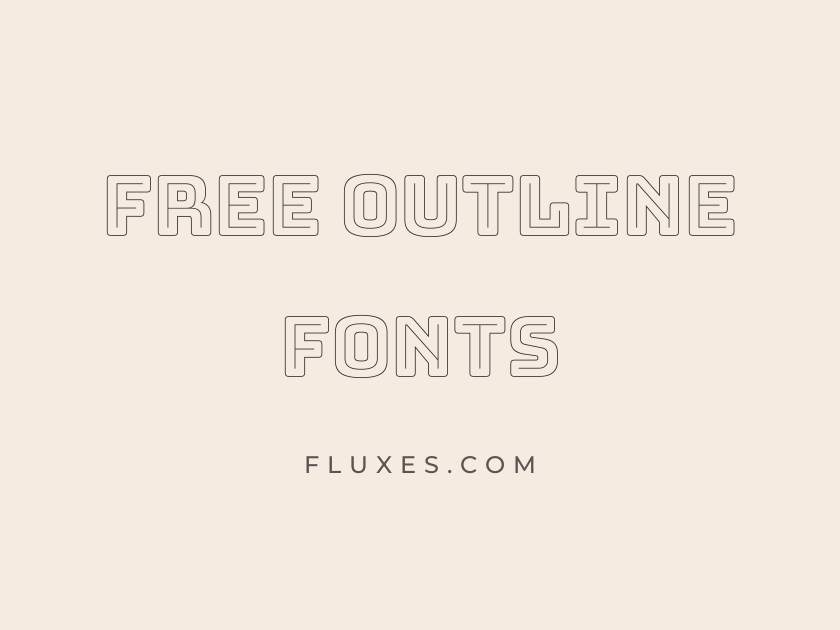
22 Best Free Outline Fonts
Outline fonts occupy a strange and useful corner of type design: letters built from a single hollow stroke rather than a solid fill, so the background always shows through. That transparency is exactly why designers reach for them on badges, posters, packaging, sports jerseys, and layered logo lockups, where a hollow letterform can sit on top of a photograph, a color block, or another word without ever going muddy. Because true outline construction is a specialist skill, the free options are fewer and more distinctive than in almost any other category, and the good ones tend to have real personality rather than generic polish.
This roundup pulls together the strongest hollow, inline, and stencil-style families on Google Fonts, along with a few dimensional cousins that share the same graphic, cut-out sensibility. Most of these work best big and bold; a few reward a lighter touch. Details on where each one shines, and where it struggles, follow.
Bungee Outline
ROAD TRIP POSTERS AND STADIUM SIGNAGE
Bungee Outline
The flagship of the genre on Google Fonts, this is a thick, confident hollow caps face built for maximum visibility at billboard scale. It comes from the same Bungee family used all over transit signage and street art, so the DNA is urban and unapologetically loud. Stack it in all caps with generous letter spacing and it reads instantly as a badge, sticker, or festival poster headline.
Londrina Outline
Handmade signs from a São Paulo sign shop
Londrina Outline
There is a warm, hand-cut quality to this one, as if someone traced bold brush letters with a chisel. It traces back to Brazilian street lettering traditions, and that folk-craft feeling carries through even at large display sizes. Pair it with a plain grotesque for body copy and the contrast between rustic and clean does a lot of the design work for you.
Fascinate Inline
Psychedelic type for retro festival flyers
Fascinate Inline
Wavy, hypnotic, and a little bit sixties, this face leans into curves where most outline fonts lean into blocks. The inline stroke running through each glyph gives it a layered, groovy look that suits concert posters, record covers, and anything chasing a retro-futurist mood. It is a personality font first, so save it for a headline or two rather than a full paragraph.
Bungee Hairline
Delicate outline lettering for modern branding
Bungee Hairline
Where its sibling Bungee Outline is heavy and blunt, this variant is drawn with a whisper-thin stroke that feels architectural and refined. It suits minimalist logotypes, editorial pull quotes, and anywhere a designer wants the graphic quality of an outline without the shout. Keep it large, though; drop it below headline size and the fine strokes start to disappear.
Ribeye Marrow
Step right up for the carnival midway
Ribeye Marrow
This is the inline companion to the solid Ribeye typeface, and it carries the same rounded, retro-American sign-painter shape with a bold stripe carved down the middle of every letter. It has an old fairground, hand-painted-truck-lettering charm that works well for diners, ice cream shops, and vintage-inspired packaging.
Bold outlined letters for playful logos
Chunky and cartoonish, this face wraps every letter in a thick graphic outline that gives it a bouncy, comic-book energy. It was built for game titles, kids’ branding, and app icons where friendliness matters more than restraint. At small sizes the heavy outline can start to close up the counters, so reserve it for headlines and short labels.
Reggae One
Sticker-style lettering with a pop art edge
Reggae One
Rounded, slightly wobbly, and outlined in a way that mimics vinyl stickers, this Japanese-designed face has a playful pop culture feel that suits music branding, streetwear, and anything wanting a hand-applied, sticker-shop look. Its personality is strong, so it pairs best with a quiet, neutral sans for supporting text.
Sigmar
Bold and rounded, built for big statements
Sigmar
Squat, muscular letterforms carry a fine inline detail that gives this face a dimensional, almost embossed quality without ever leaving pure two-dimensional type. It reads confidently at huge sizes on posters and hero banners, and the rounded terminals keep it friendly rather than aggressive.
Layered lettering for transit-style graphics
A middle ground between the solid Bungee and the fully hollow Bungee Outline, this version keeps a slim inner line running through a bold structure. Using it alongside its family members on the same page, say Inline for a headline and solid Bungee for a subhead, creates an easy, built-in system without any extra font pairing decisions.
Neon signs glowing over a midnight diner
Built from parallel lines that mimic bent glass tubing, this is the closest Google Fonts gets to an actual neon sign. It is unmistakably a nightlife font, perfect for bar branding, retro arcade graphics, and dark-mode websites, but the tightly packed lines turn to visual noise below headline size, so give it plenty of room.
If a genuinely outlined face is not available in the exact mood needed, a bold, simple geometric sans like Anton or Oswald can be converted into an outline effect with a CSS text-stroke property, giving a similar hollow look built from a solid font.
Between the true hollow faces, the inline stripes, and the stencil-inspired cuts, there is enough range here to cover everything from a quiet product label to a shouting festival poster. Download a few, test them at real size against real backgrounds, and let the letterforms do the heavy lifting the fill color usually would.